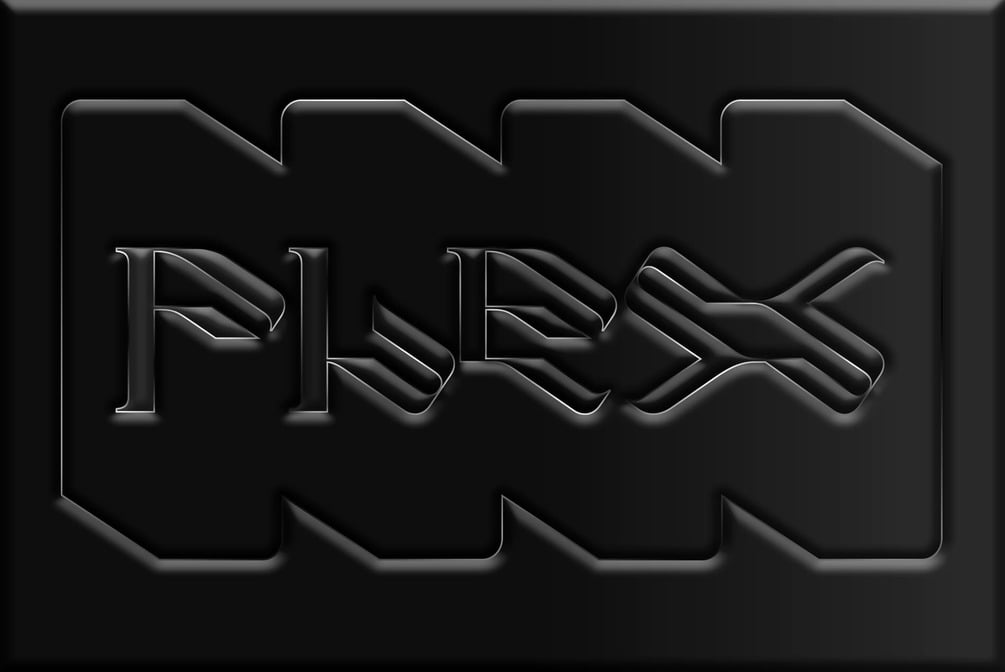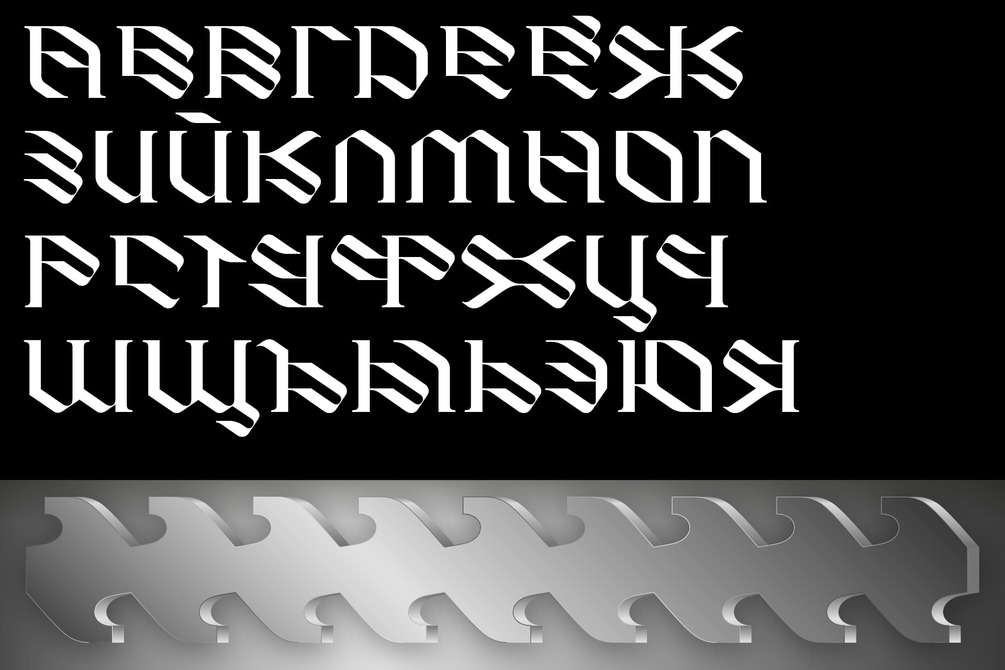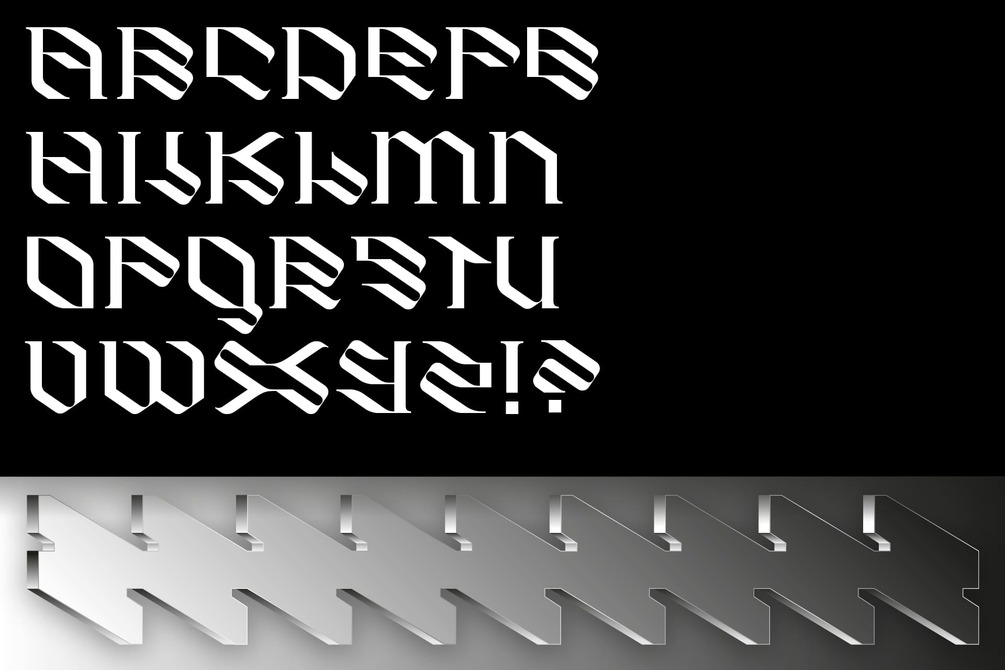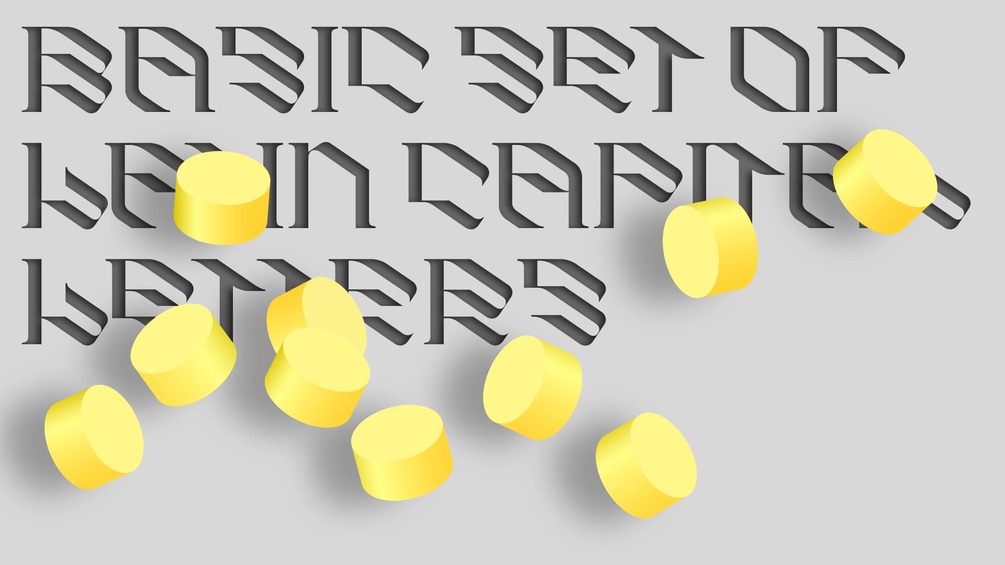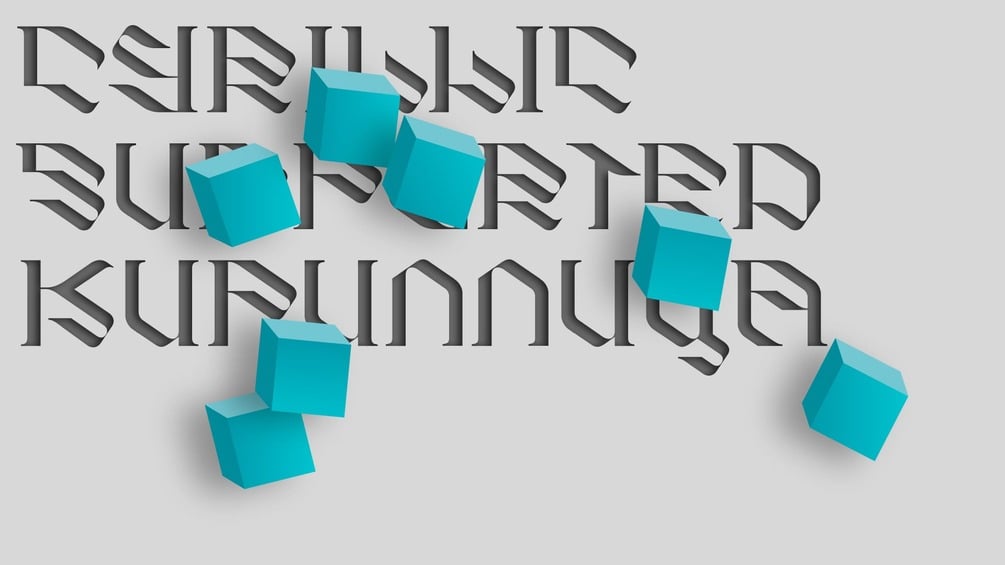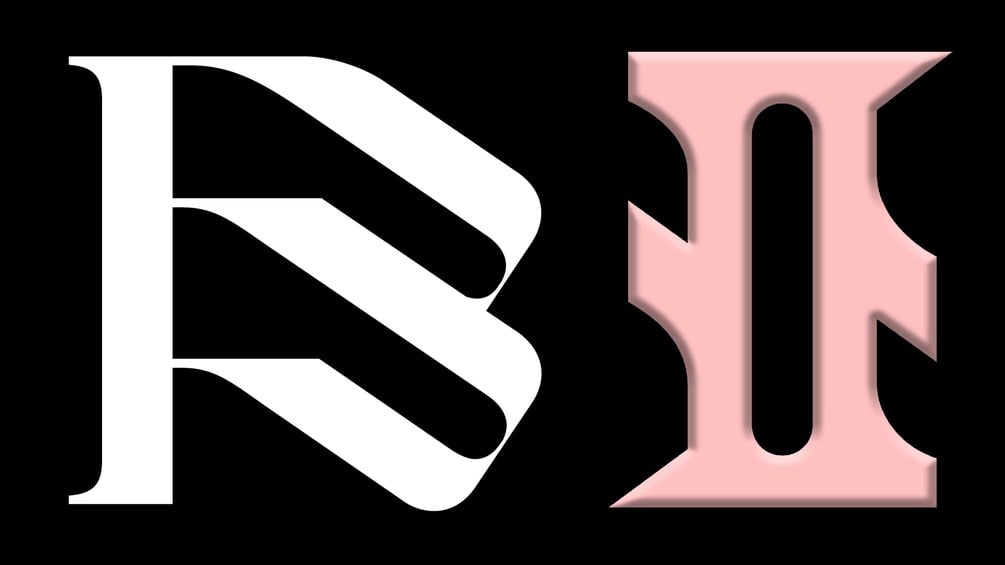
"Eskos Display" font
Eskos Display — when creating a font, the only setting was "to make a font from diagonals alone". Here's what happened. To make the font look uniform in optical weight, some strokes of the letters are bent, filling the white space. The whole font connects the curves and the transfusion of the shape from thick diagonals to thin horizontals. Yes, the font may not be so easy to read, but what a beautiful pattern)